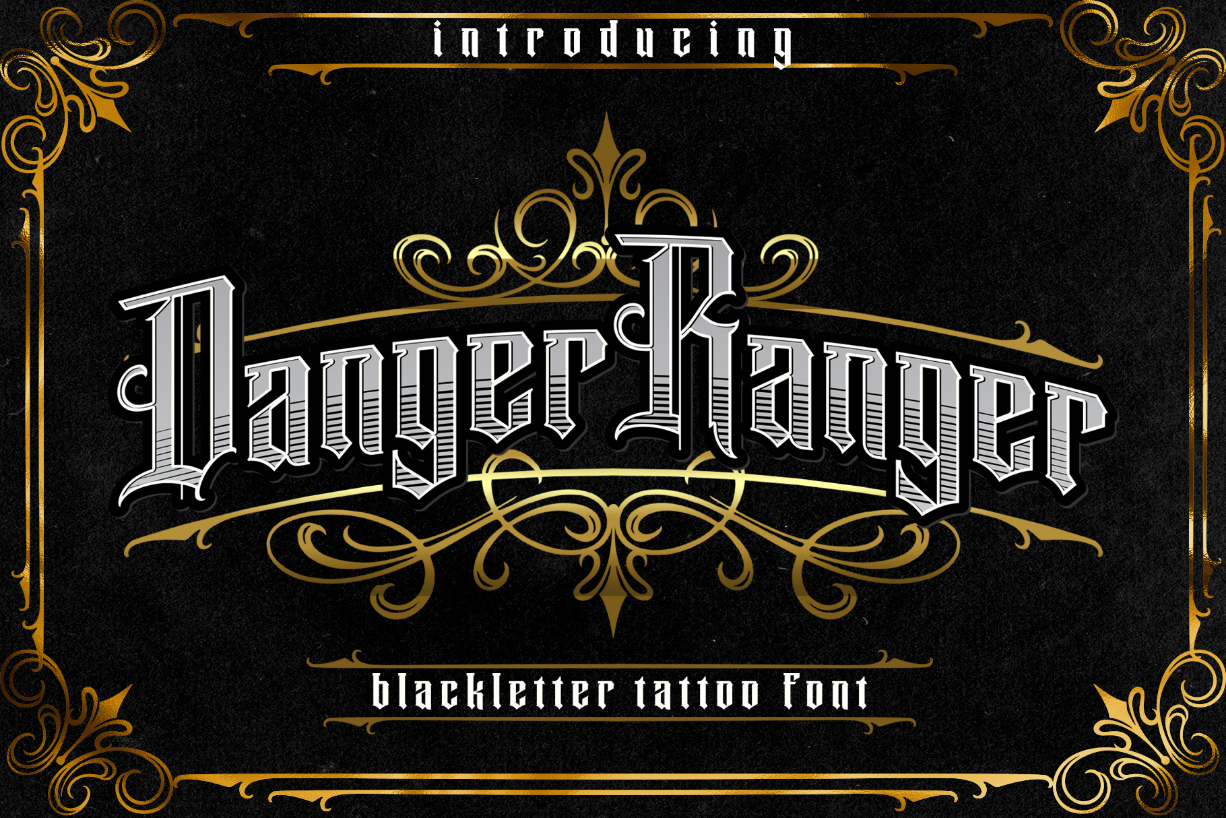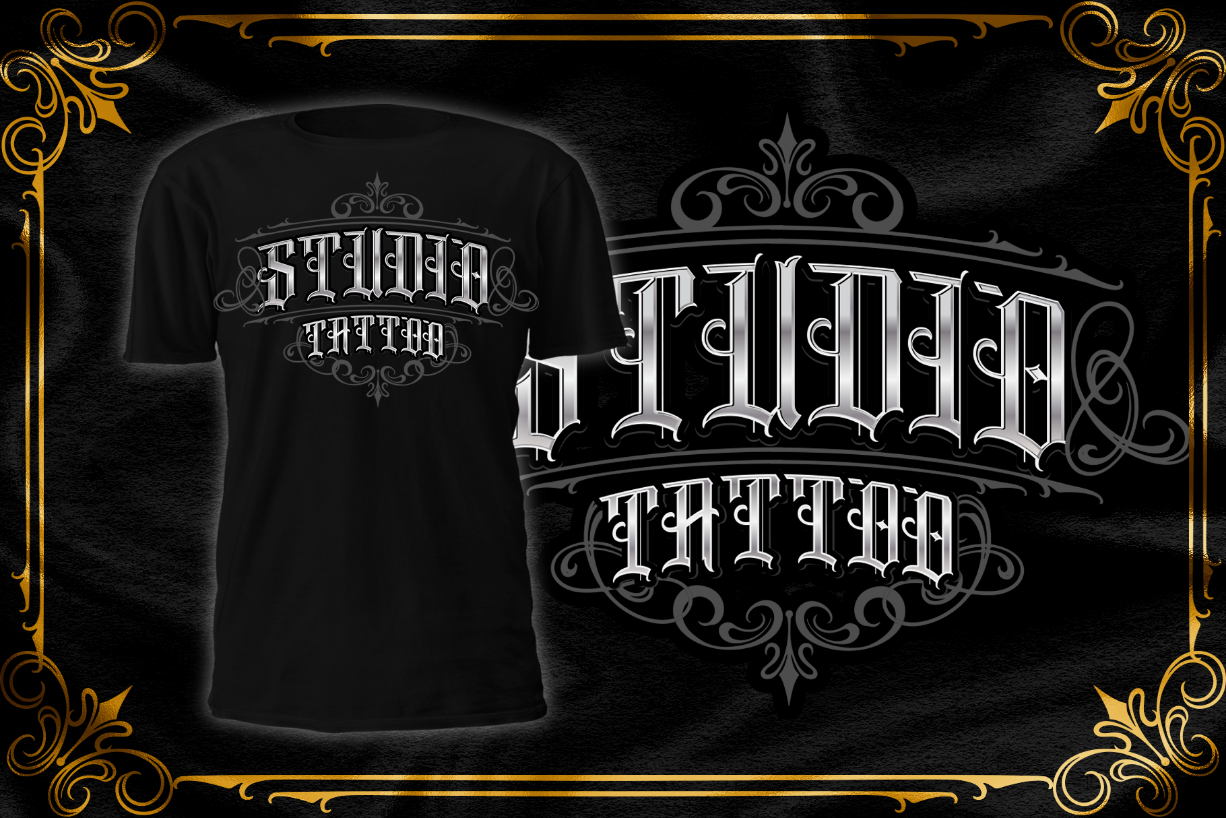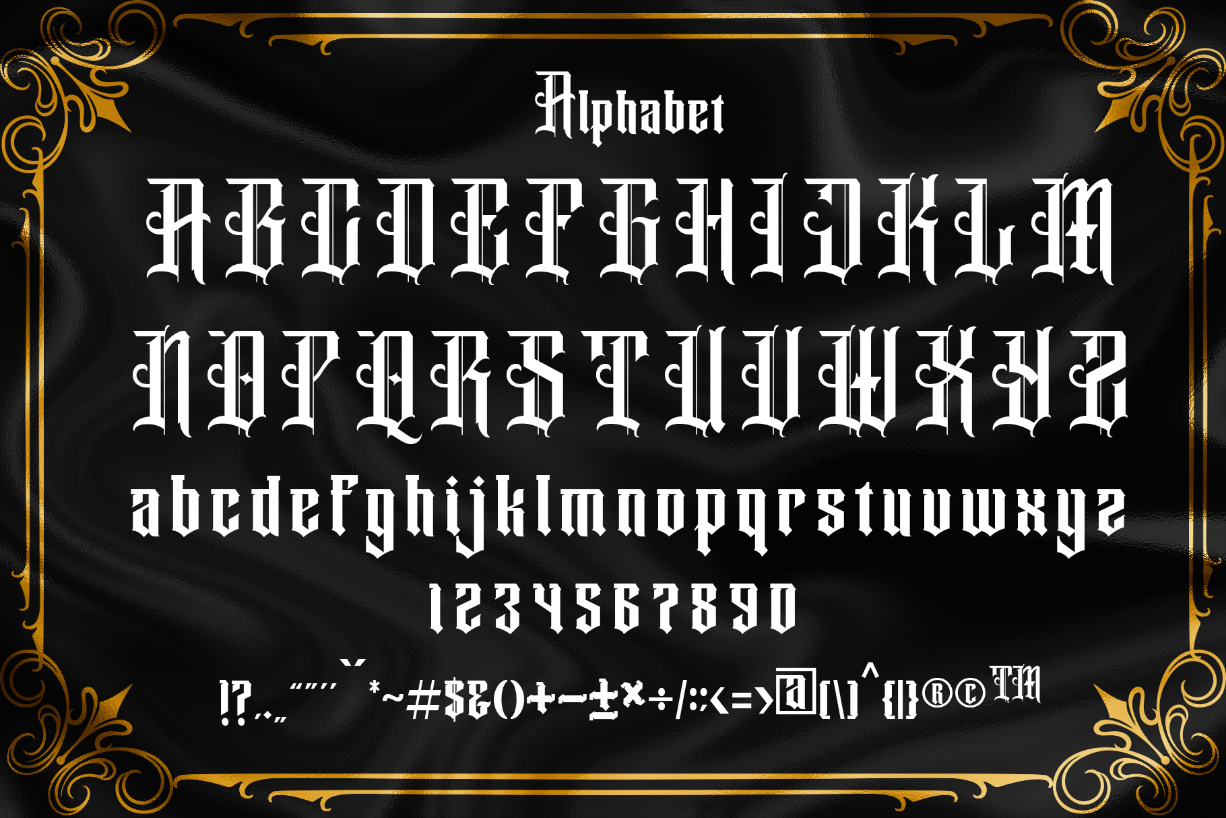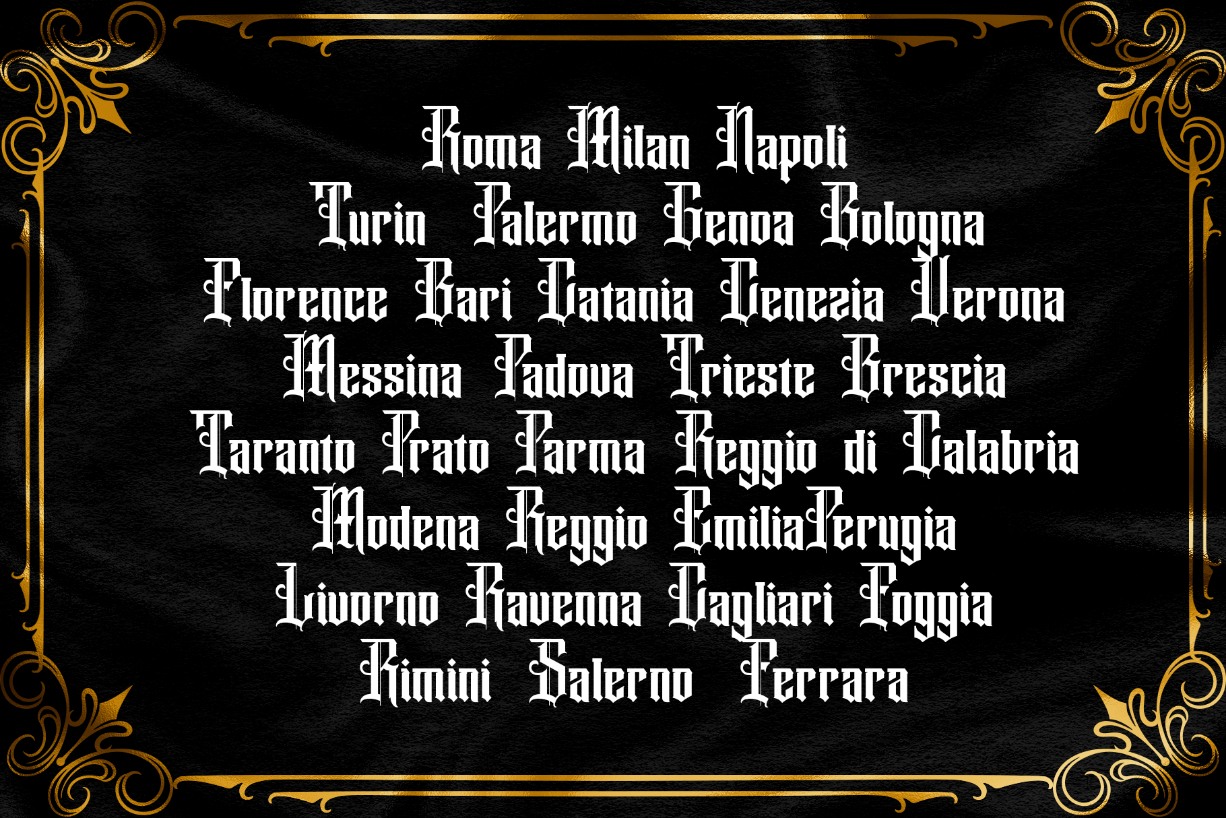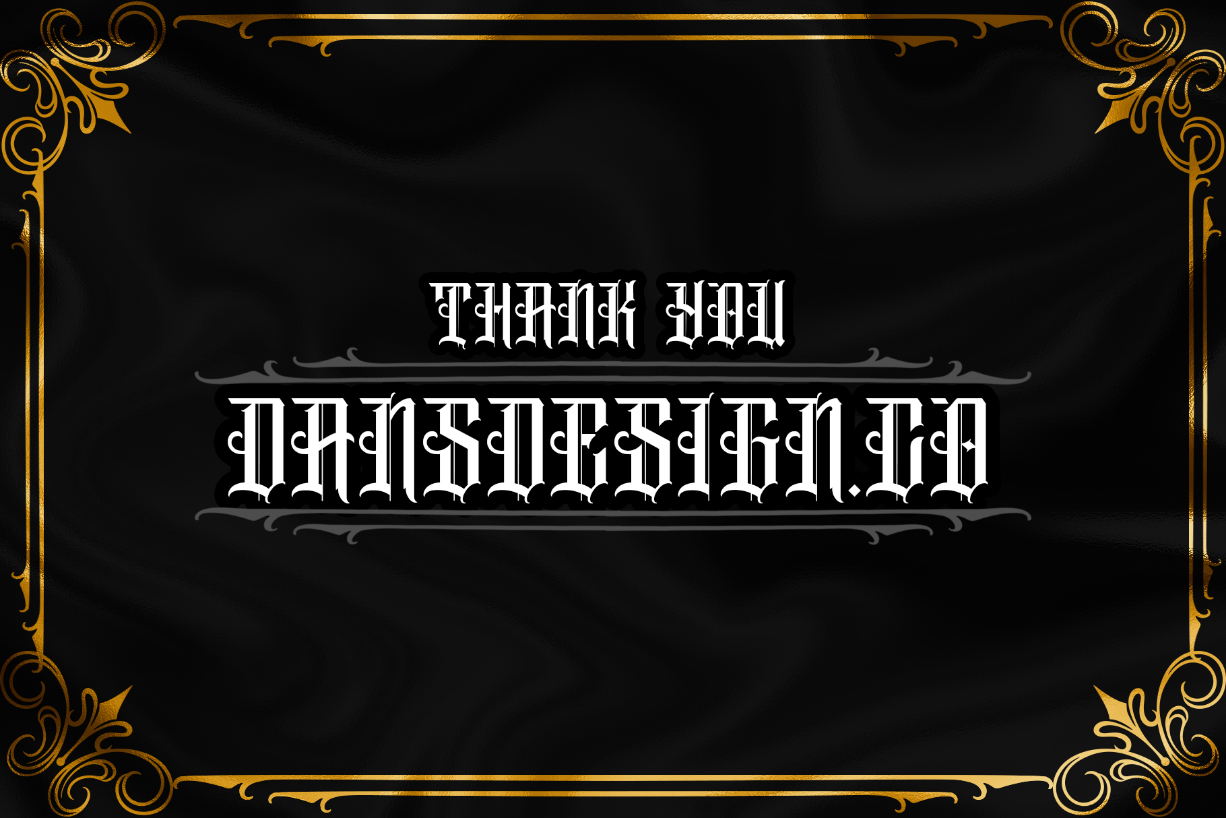
About Danger Ranger Font
Danger Ranger is a bold, distinct and elegant blackletter font. This font is neatly crafted and highly detailed. Whatever the topic, it will be a wonderful asset to your font library, as it has the potential to enhance any creation.